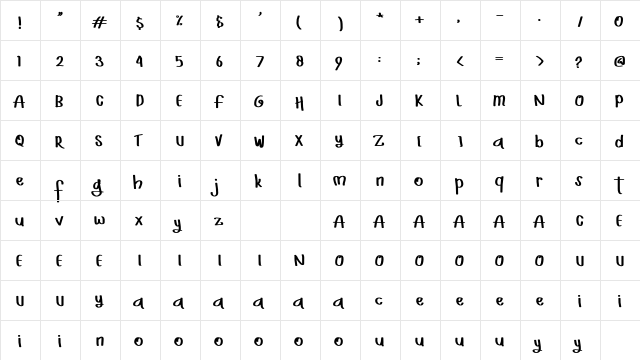
Christmas Santa Regular Font Preview
Christmas Santa Regular
Christmas Santa Regular Font Details
Design Context for Christmas Santa Typeface
Christmas Santa is a composed and adaptable typeface that performs quietly and consistently across a wide range of design contexts.
Pro Tip: Pair Christmas Santa with a font of contrasting weight or personality to build a more expressive typographic hierarchy.